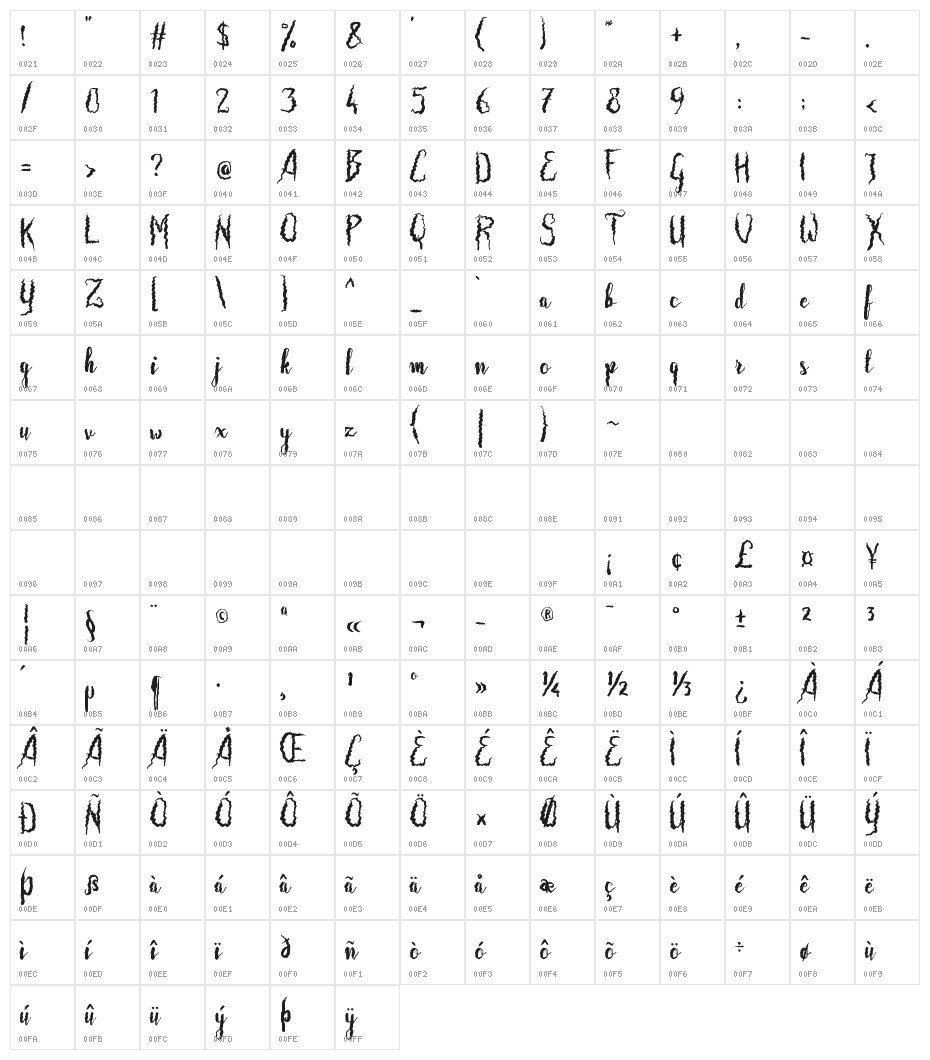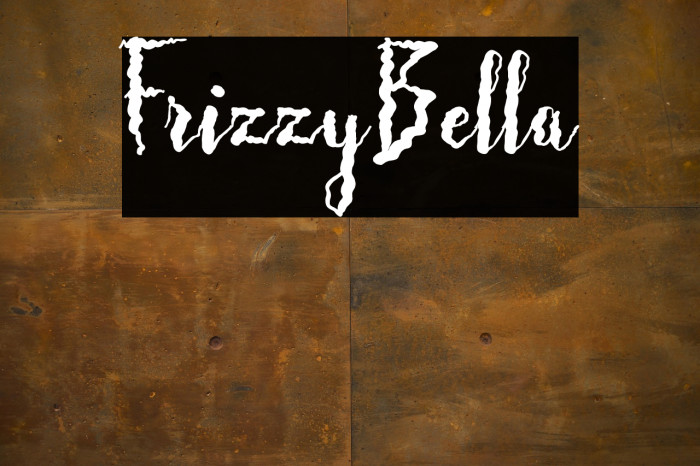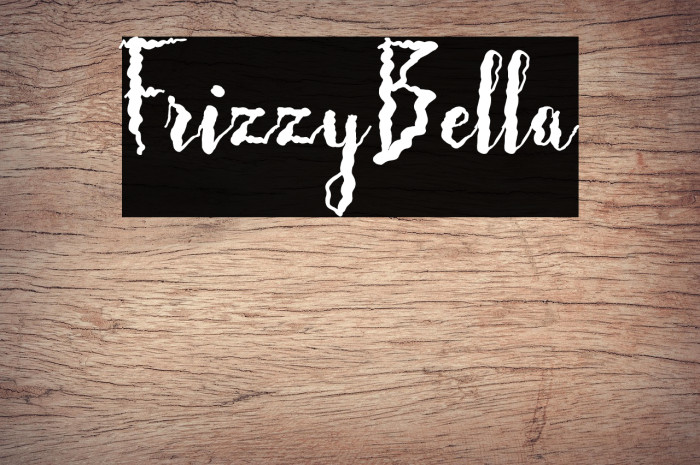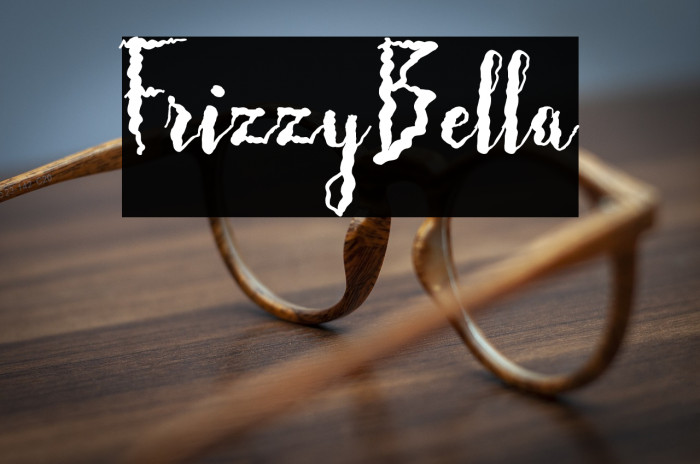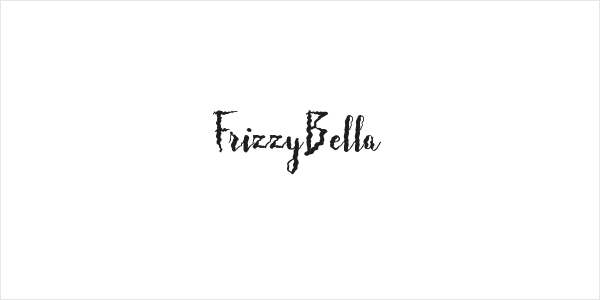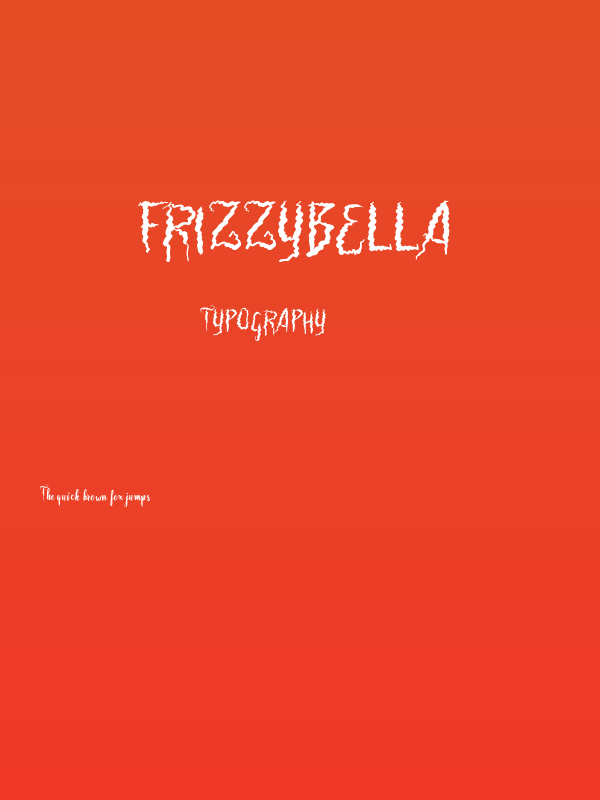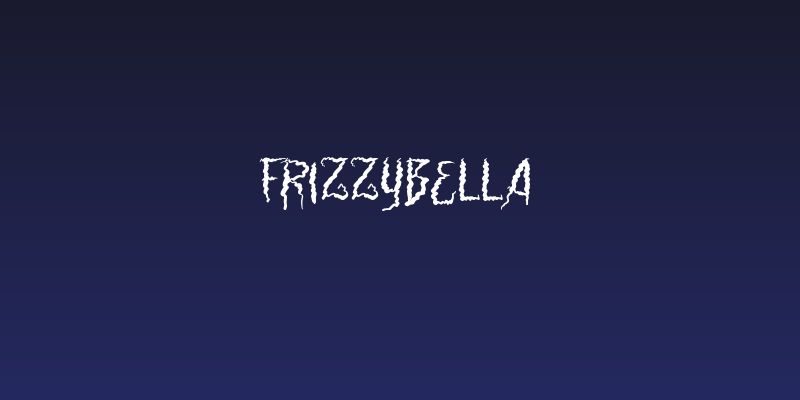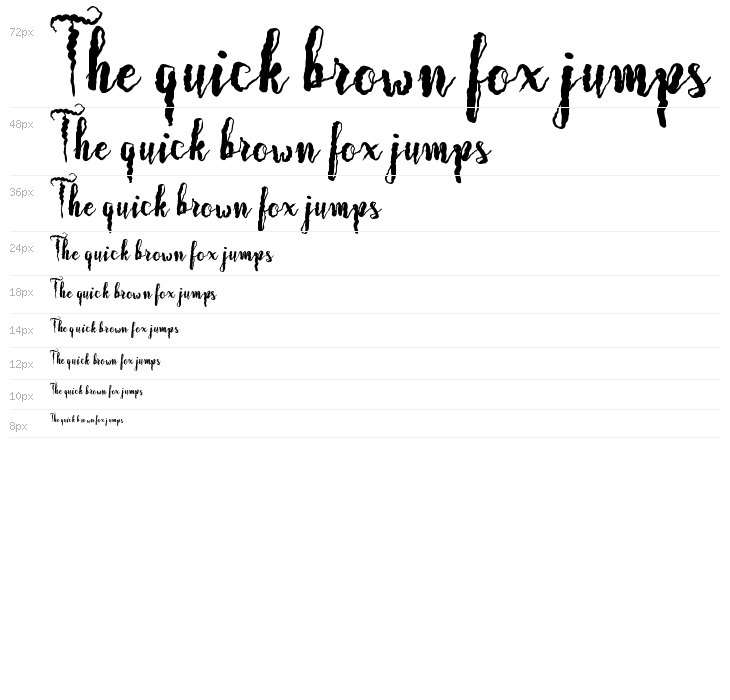
FrizzyBella Font
FrizzyBella Description
This font features a unique, wavy design that gives it a frizzy and dynamic appearance. The characters are irregular and have a hand-drawn quality, with uneven strokes that create a sense of movement and energy. The uppercase and lowercase letters maintain a consistent style, with the uppercase being slightly more pronounced. Numbers and special characters follow the same aesthetic, ensuring a cohesive look across all text. This font's playful and artistic nature makes it stand out, ideal for creative projects that require a touch of whimsy and individuality.
| Use Case | Headlines, Logos, Artistic projects |
| Proposed Projects | Ideal for creative projects such as posters, album covers, and artistic branding that require a unique and playful touch. |